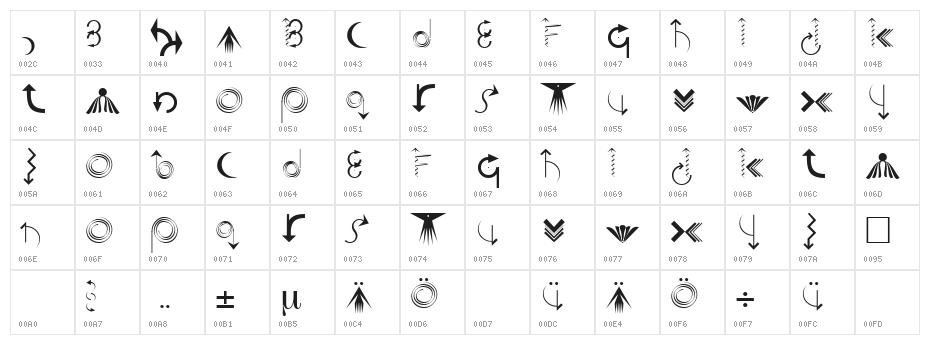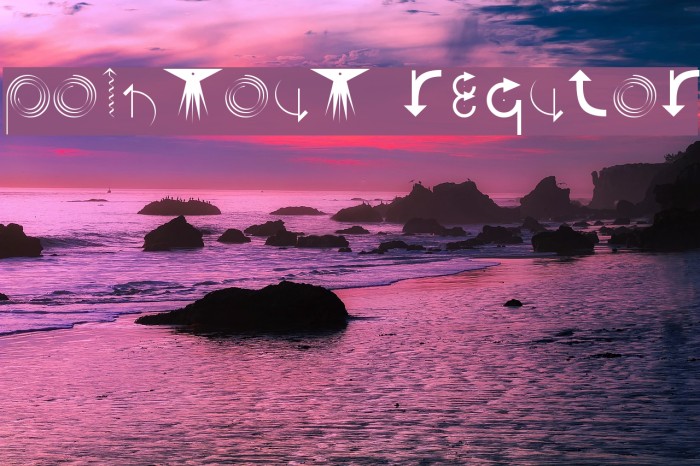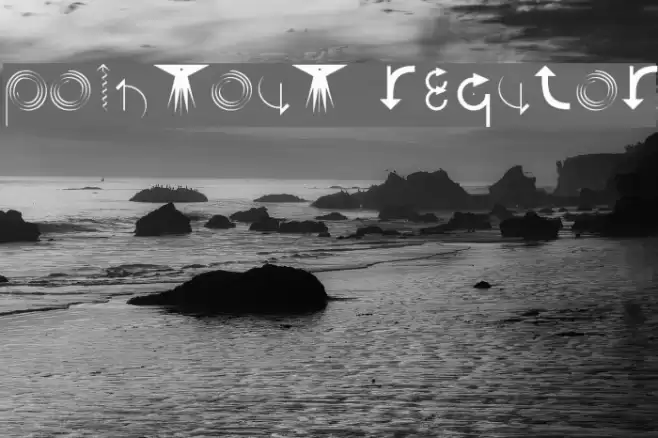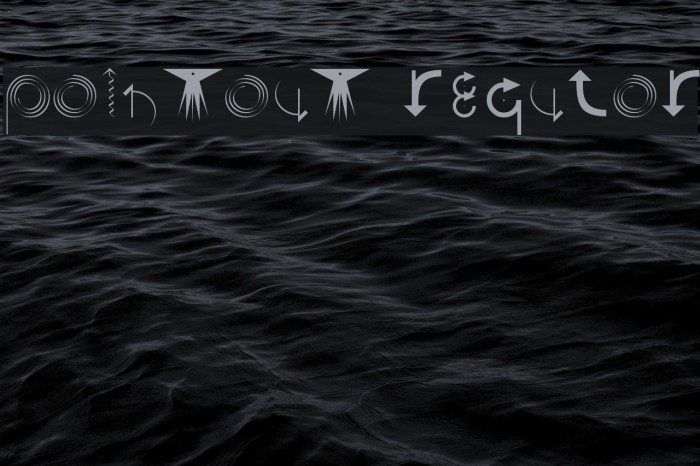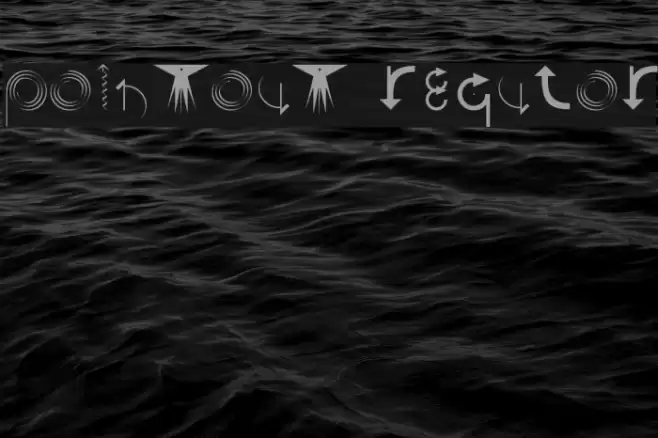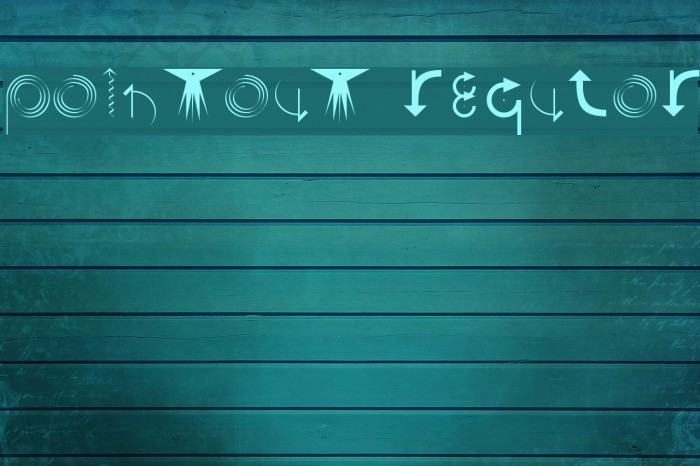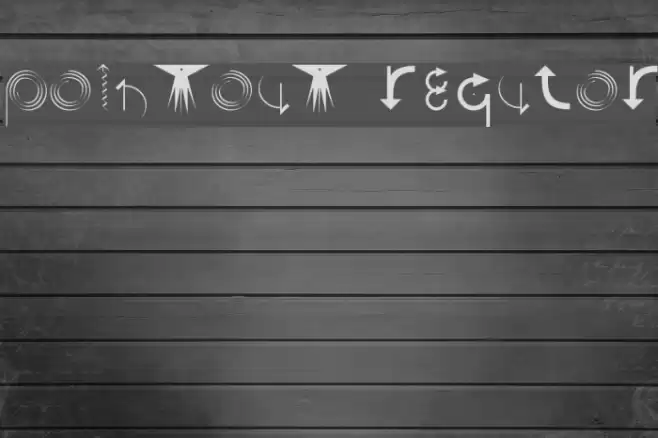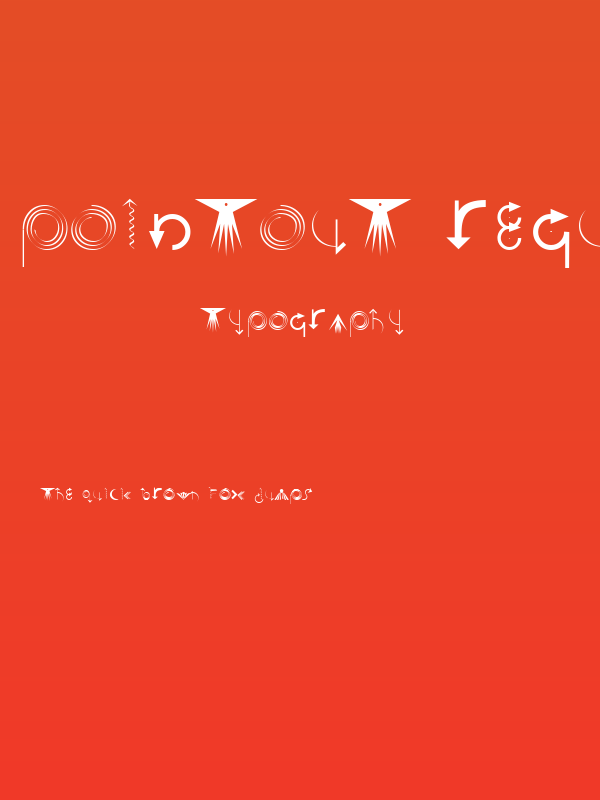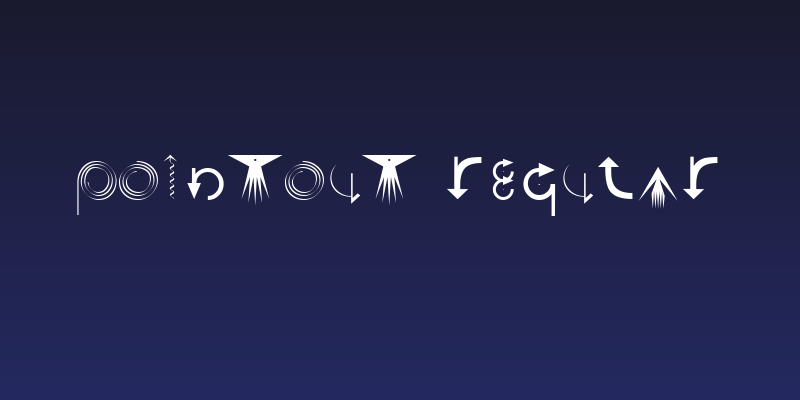
Pointout Regular Font
Pointout Regular Description
This font is a highly decorative and artistic typeface, characterized by its unique and abstract design elements. Each character incorporates various geometric shapes, arrows, and lines, creating a dynamic and visually engaging appearance. The uppercase and lowercase letters are distinctively styled, with swirling patterns and directional motifs that suggest movement and energy. The numbers and special characters continue this theme, offering a cohesive and imaginative set. This font's intricate design makes it stand out, ideal for projects that require a bold and creative touch.
Use CaseLogos, Headlines, Artistic projects
Proposed ProjectsIdeal for artistic posters, creative branding, unique logos, and experimental design projects.